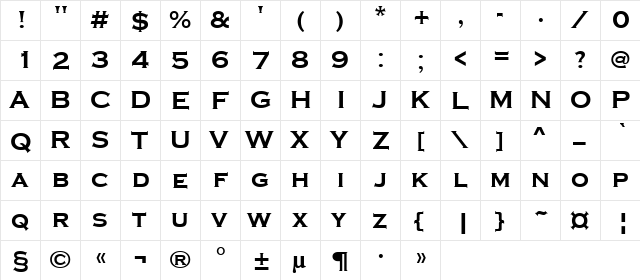
a_CopperGothCpsExp Regular
Design Context for a_CopperGothCpsExp Typeface
a_CopperGothCpsExp takes a measured approach to typography — its balanced proportions and neutral character make it a reliable workhorse for both digital and print work.